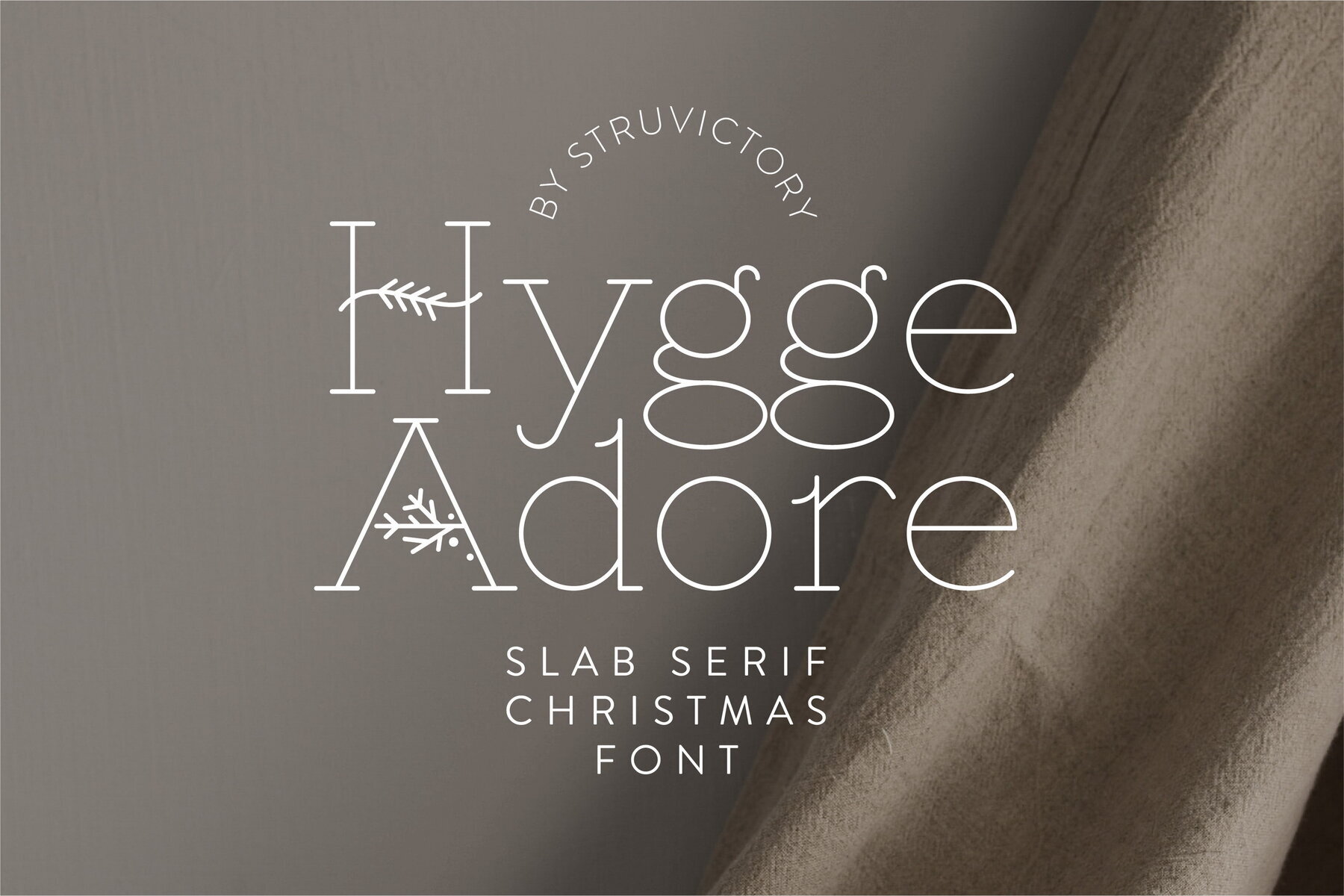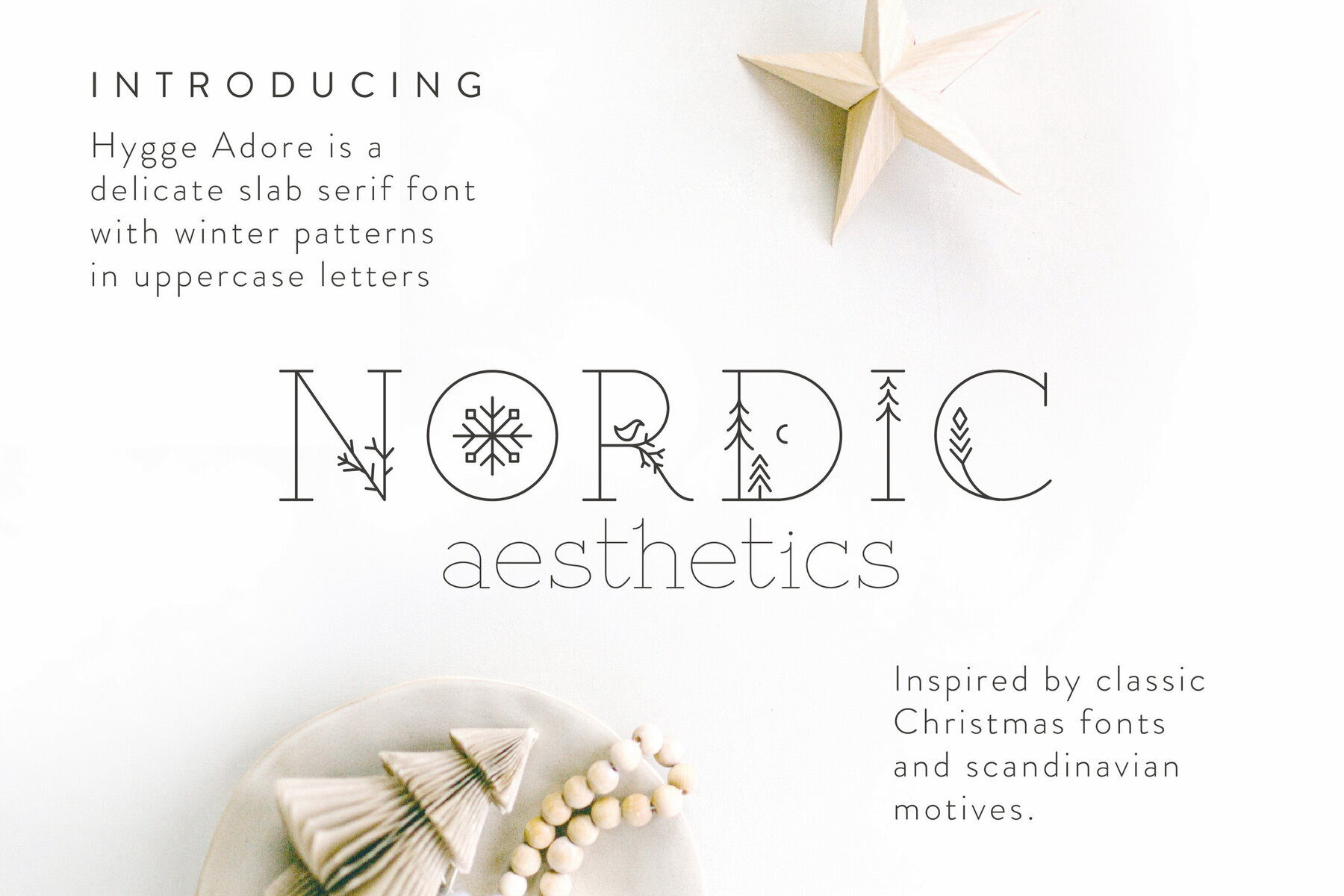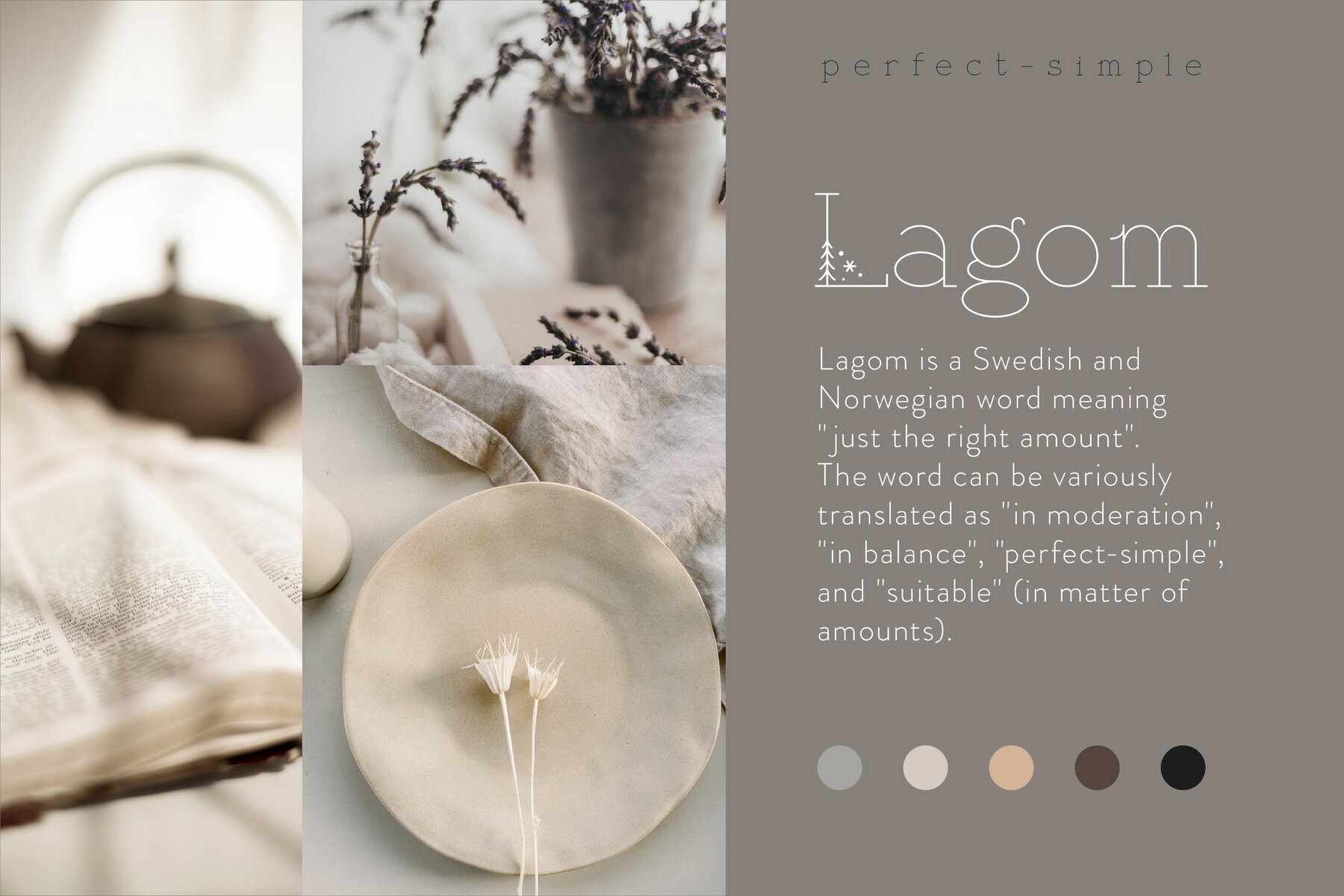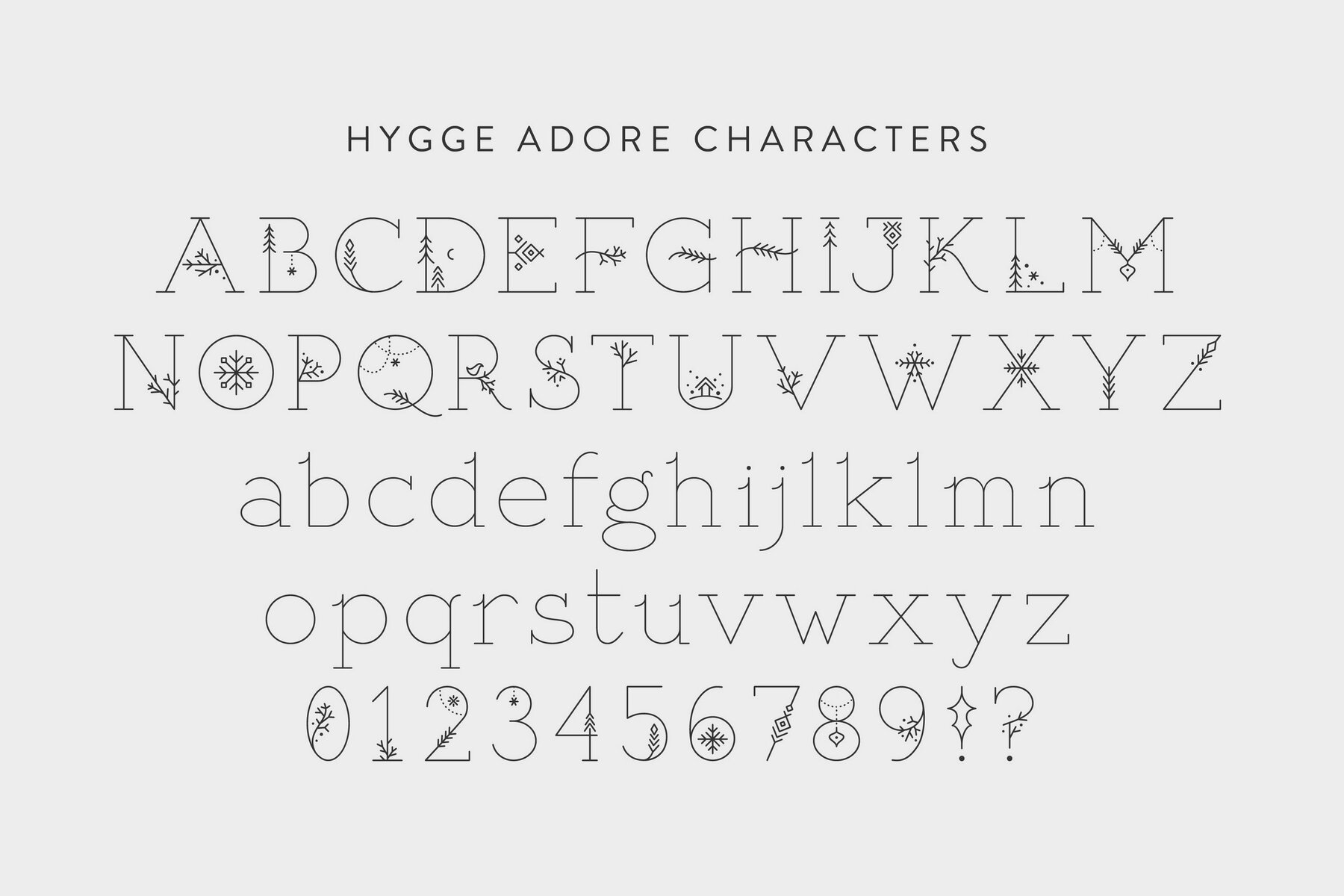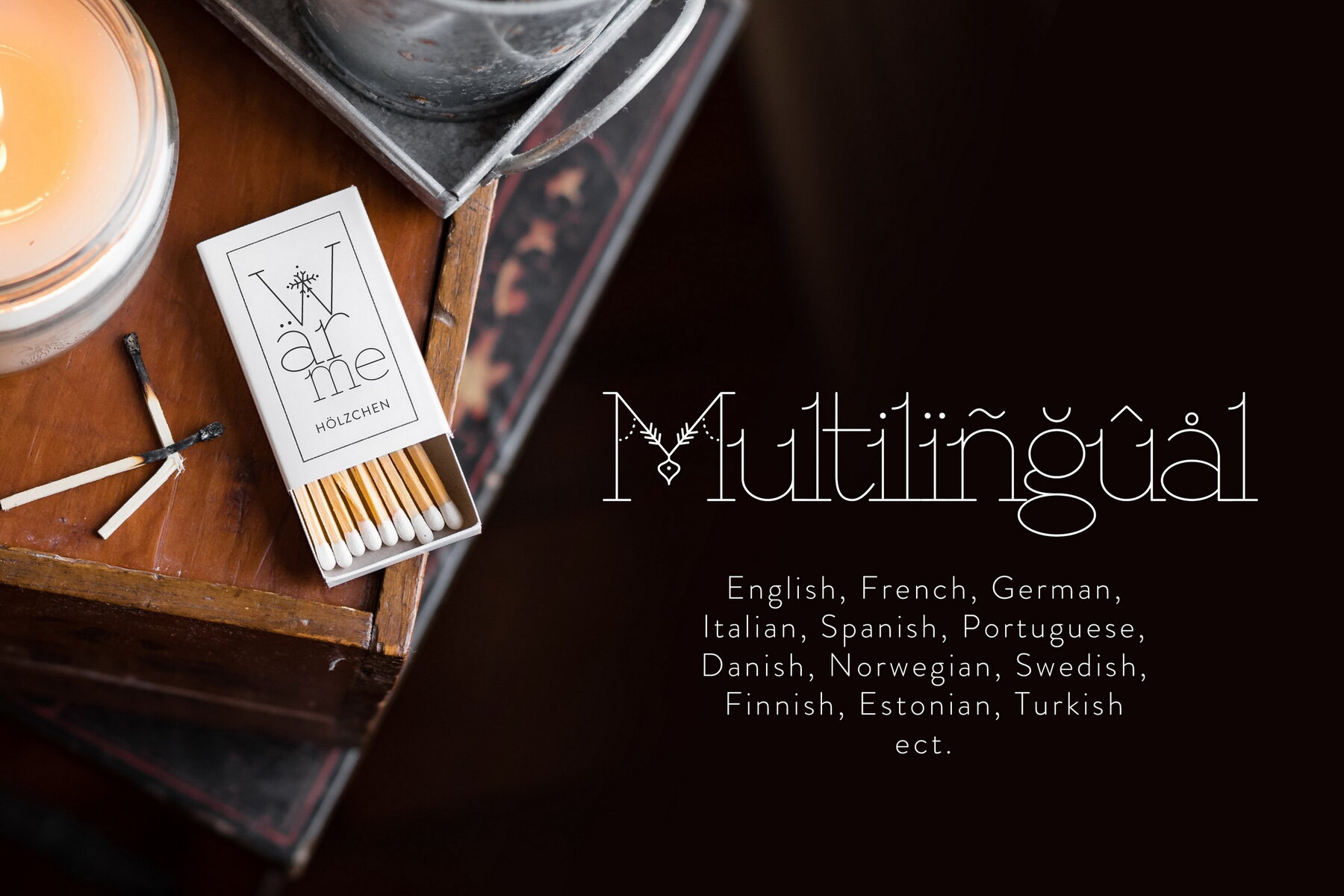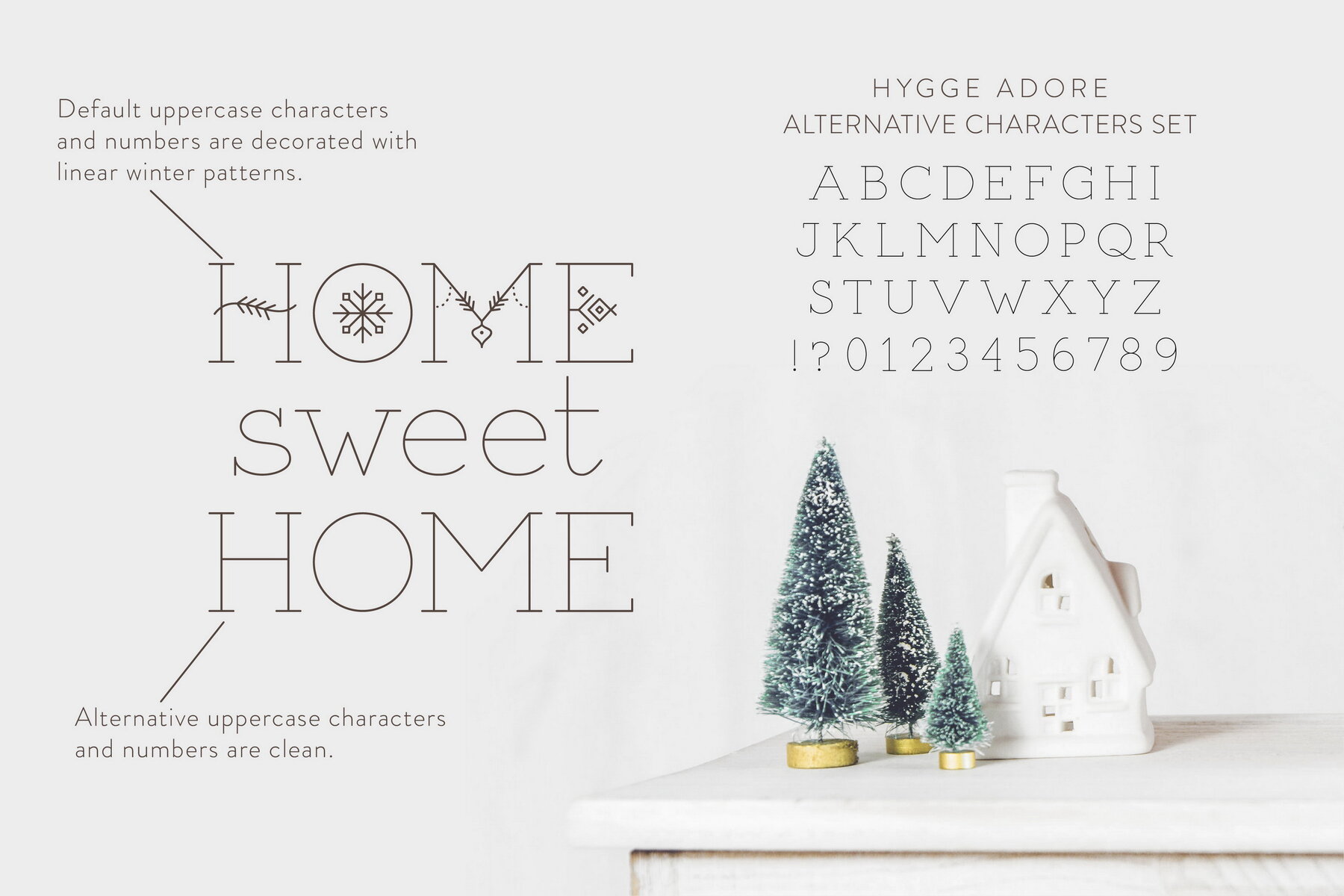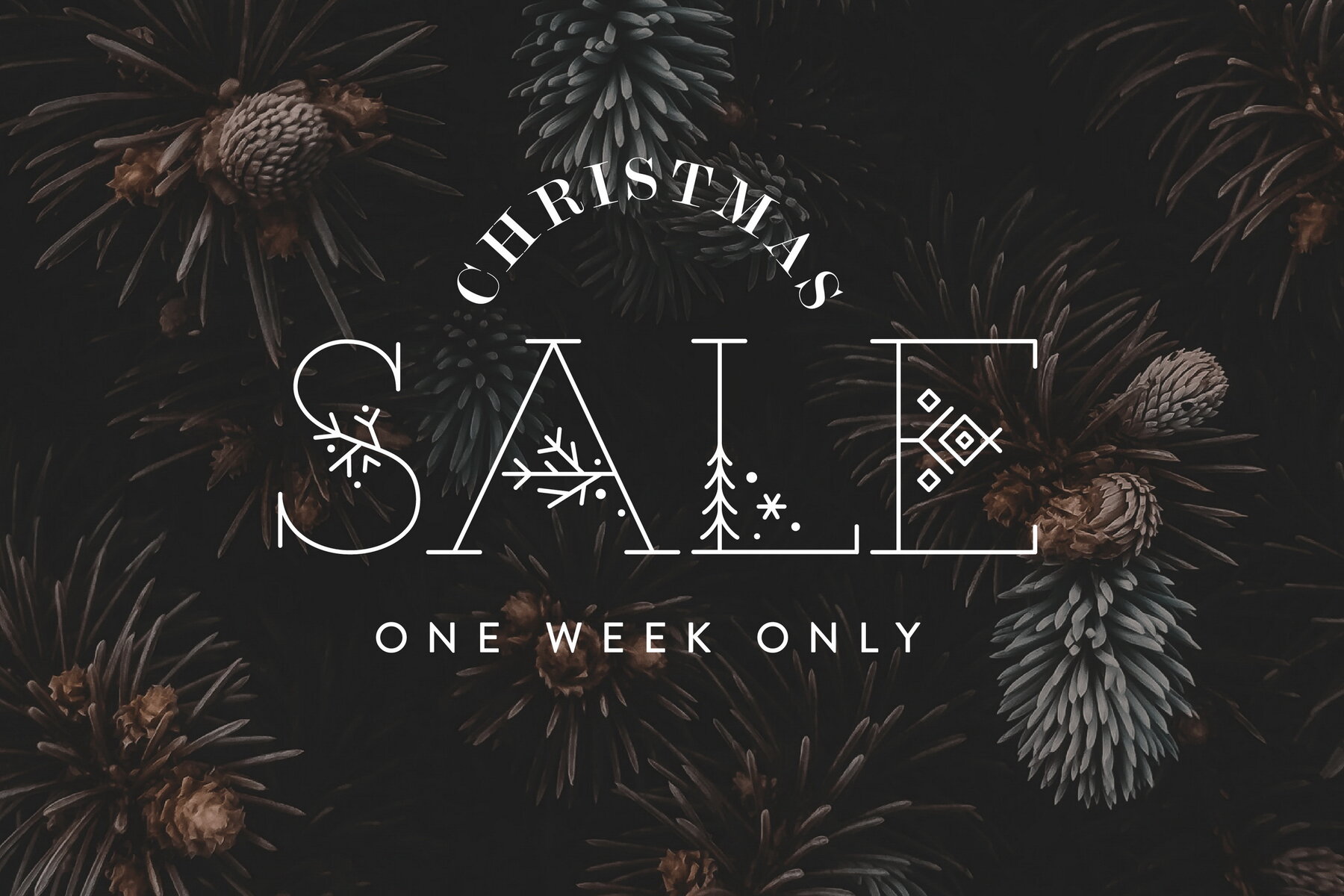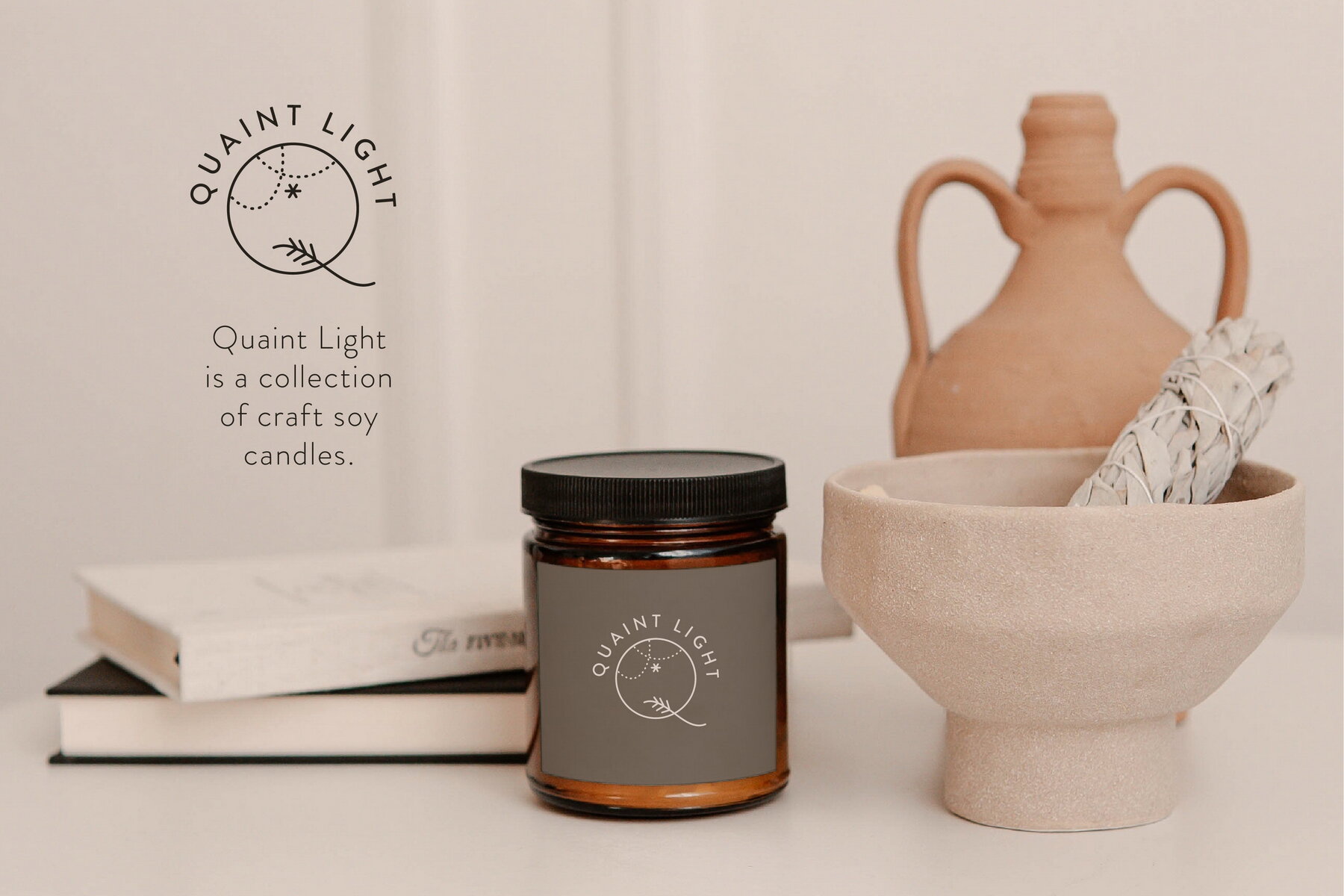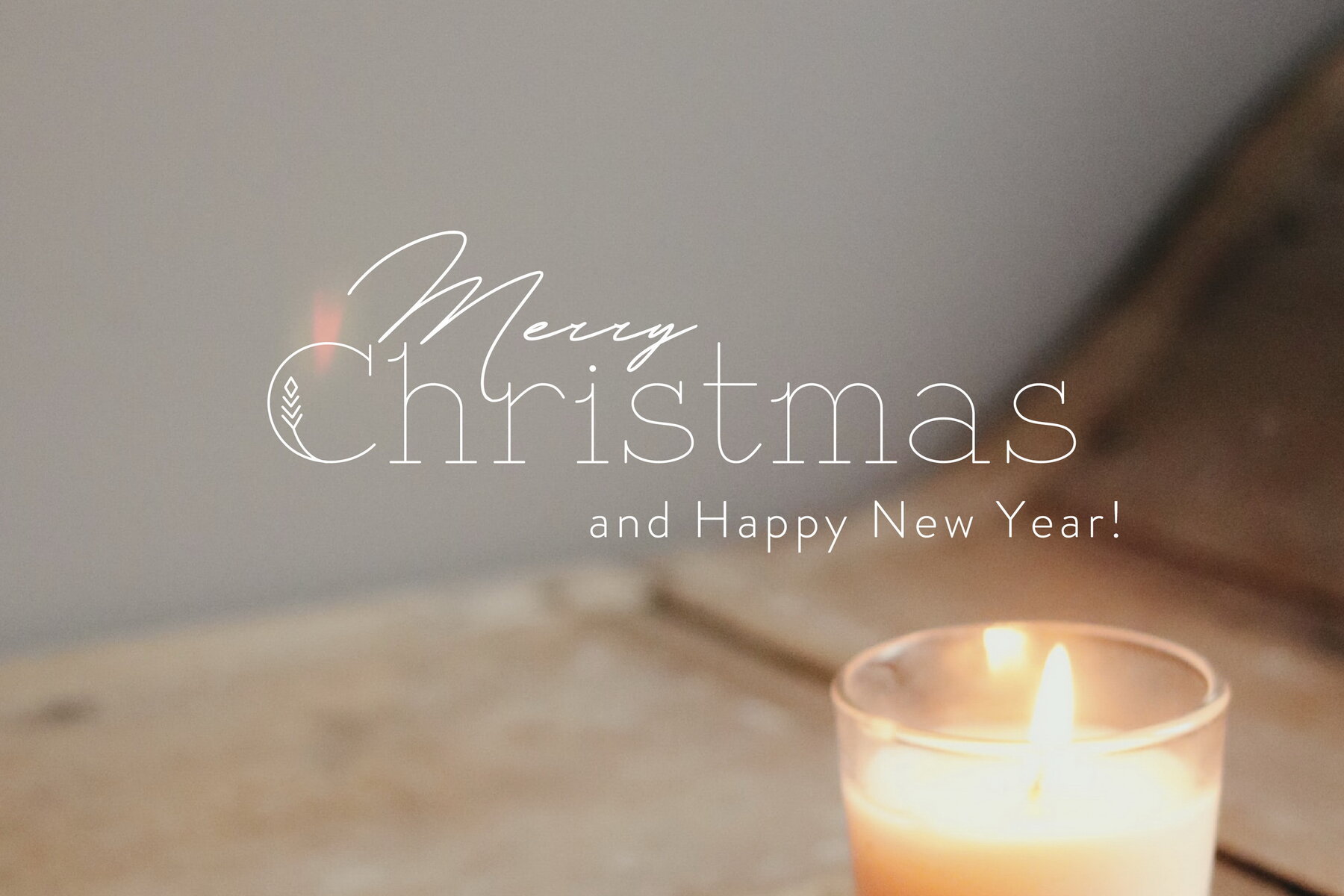
Hygge Adore Font
Hygge Adore Regular
Hygge Adore is an elegant slab serif font featuring intricate winter patterns in its uppercase letters. This typeface draws inspiration from classic Christmas fonts and Scandinavian motifs, offering a unique blend of seasonal charm and traditional design. The Hygge Adore font is ideal for branding and packaging of craft products such as handmade candles, soaps, teas, and coffees. Its design lends itself beautifully to Christmas and hygge-themed creations. Use individual letters and symbols to craft distinctive logos and monograms.Hygge Adore: Delicate Slab Serif with Winter Patterns
Perfect for Crafting Projects